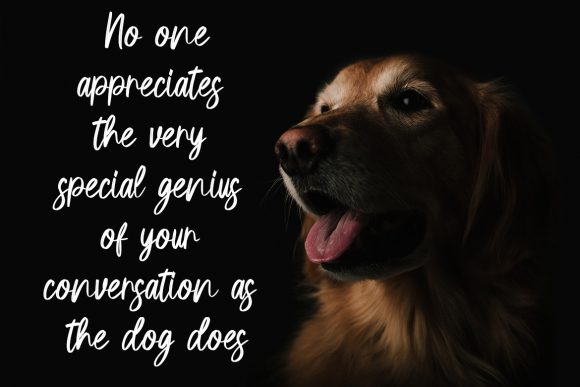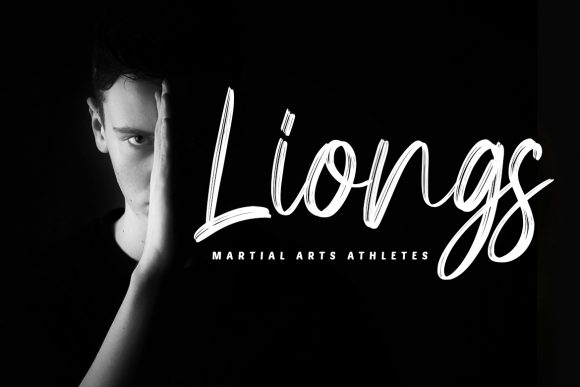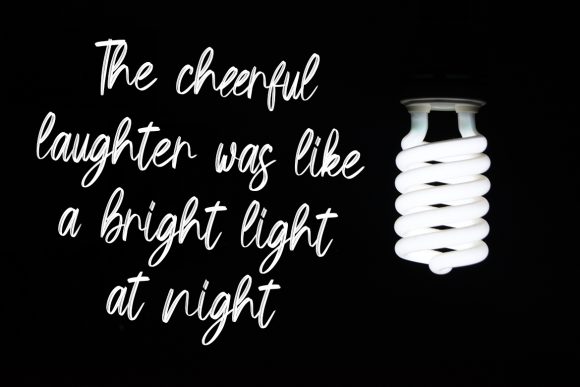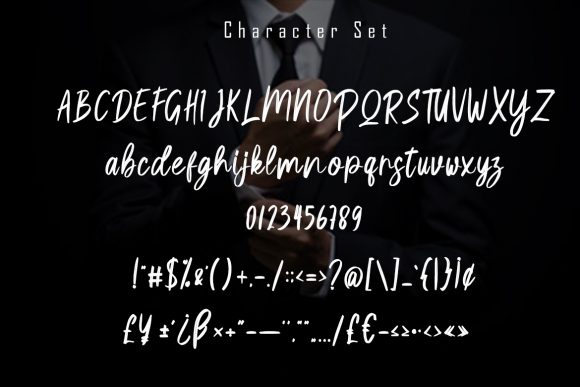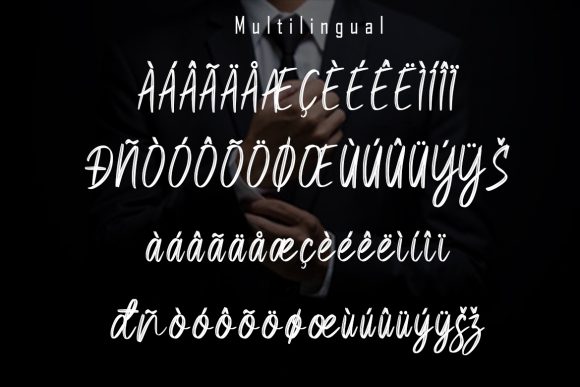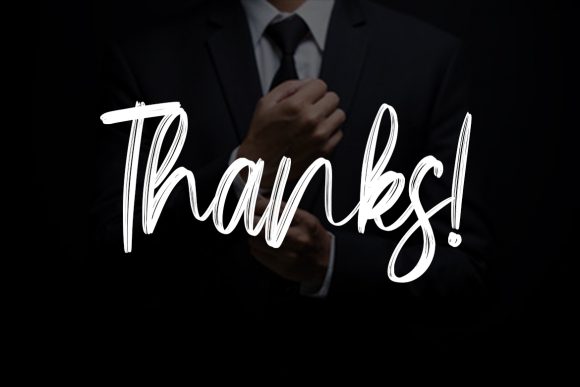
Dastyn Font: Elevate Your Designs with Elegant Brushstrokes
In the world of typography, few fonts capture the essence of elegance and sophistication as beautifully as Dastyn. This stunning brushed handwritten font is a masterpiece of modern design, boasting sweet and delicate swashes that add a touch of refinement to any project. Whether you’re a designer, crafter, or DIY enthusiast, Dastyn is the perfect choice for those seeking to infuse their work with a sense of luxury and poise.
The Characteristics of Dastyn Font
Dastyn is an elegant and flowing font that showcases a unique blend of classic and modern elements. Its brushed strokes exude a sense of softness and vulnerability, while its delicate swashes add a touch of drama and flair. This font is perfect for designs that require a personal and human touch, such as:
- Letterheads and titles: Add a touch of sophistication to your business correspondence or project headings with Dastyn’s elegant script.
- Stationery: Create beautiful greeting cards, invitations, or thank-you notes that showcase your personal style.
- Branding and packaging: Elevate your brand’s visual identity with Dastyn’s luxurious and refined aesthetic.
What Makes Dastyn Font Stand Out?
In a sea of digital fonts, Dastyn stands out for its unique characteristics and versatility. Here are just a few reasons why designers and crafters love this font:
- Elegant and refined: Dastyn’s brushed strokes and delicate swashes create a sophisticated look that’s perfect for high-end designs.
- Versatile: This font can be used for a wide range of projects, from formal letterheads to creative stationery.
- Easy to read: Despite its elegant appearance, Dastyn is surprisingly easy to read, making it perfect for body text and captions.
- Unique: Dastyn’s distinctive look ensures that your designs will stand out from the crowd and leave a lasting impression.
Tips for Using Dastyn Font Effectively
To get the most out of Dastyn, here are a few tips to keep in mind:
- Pair with contrasting fonts: Combine Dastyn with a clean sans-serif font to create visual interest and hierarchy.
- Experiment with colors: Dastyn looks stunning in a range of colors, from soft pastels to rich jewel tones.
- Play with swashes: Dastyn’s delicate swashes can add a touch of drama to your designs – experiment with different swash styles to find the perfect look.
Dastyn font is a true gem in the world of typography. Its elegant and refined appearance makes it perfect for designers and crafters seeking to add a touch of sophistication to their work. With its versatility, ease of use, and unique characteristics, Dastyn is sure to become a staple in your design toolkit. So why wait? Discover the beauty of Dastyn font today and elevate your designs to new heights!
Whether you’re a seasoned designer or a DIY enthusiast, Dastyn font is sure to inspire your creativity and take your projects to the next level. So go ahead, get creative, and let Dastyn’s elegant brushstrokes bring your designs to life!